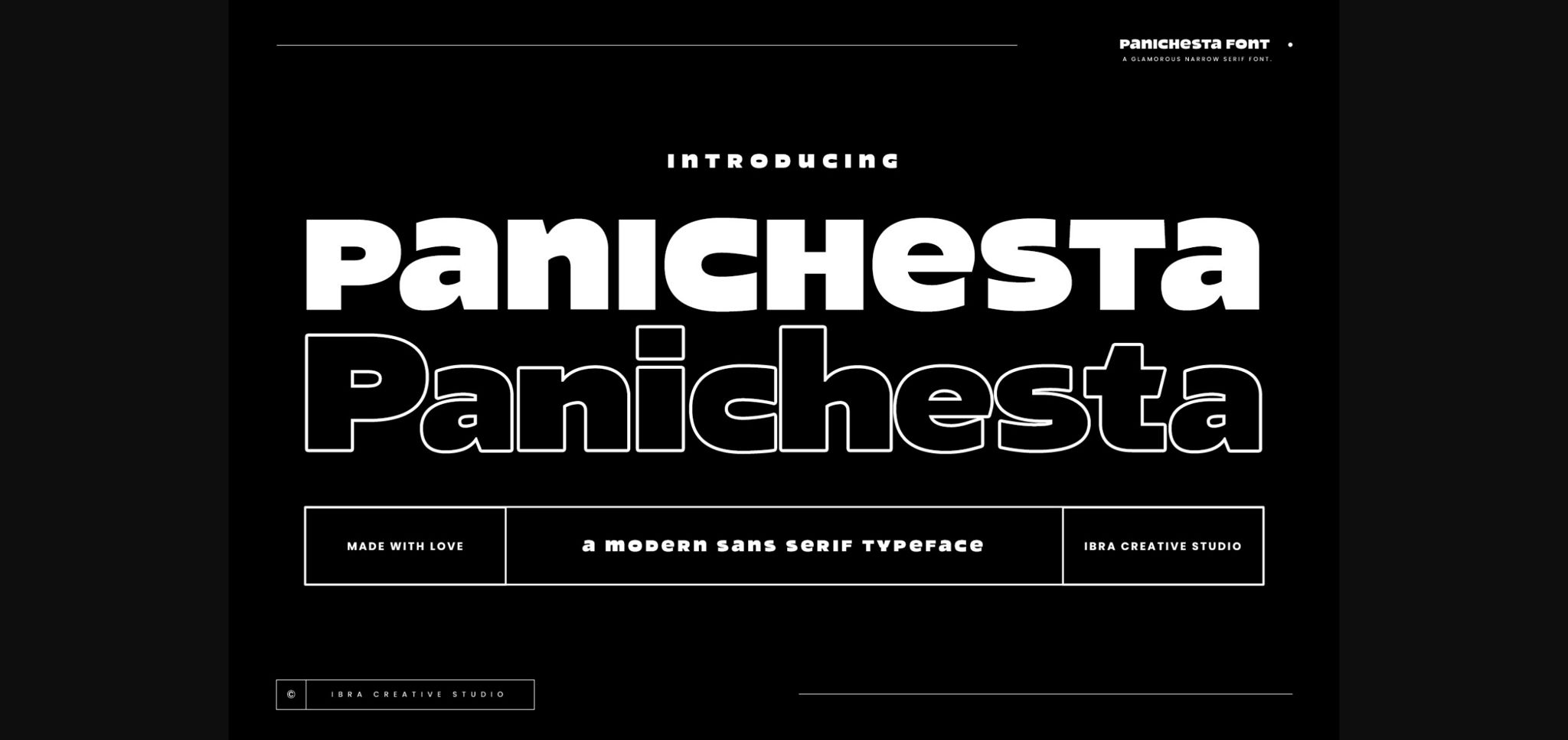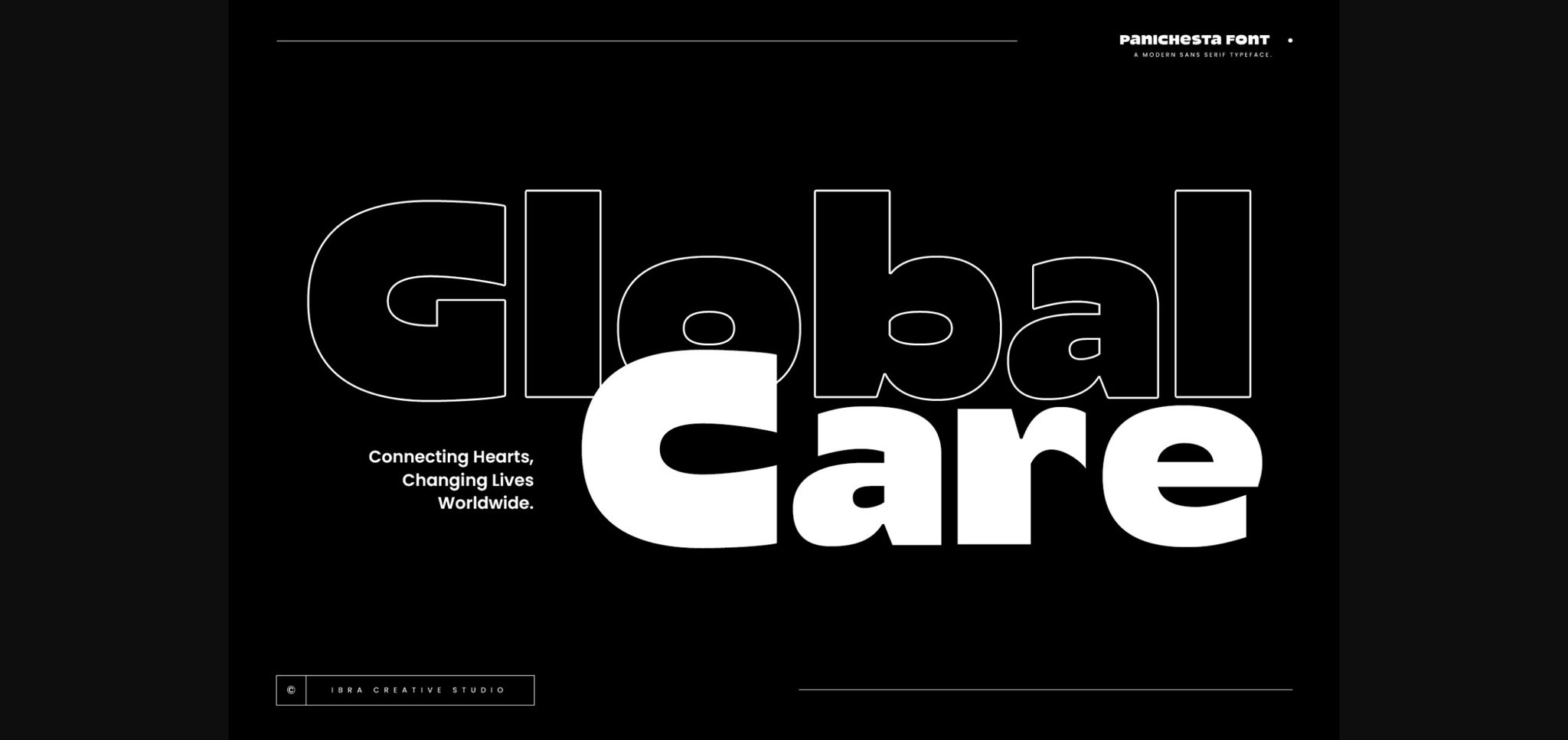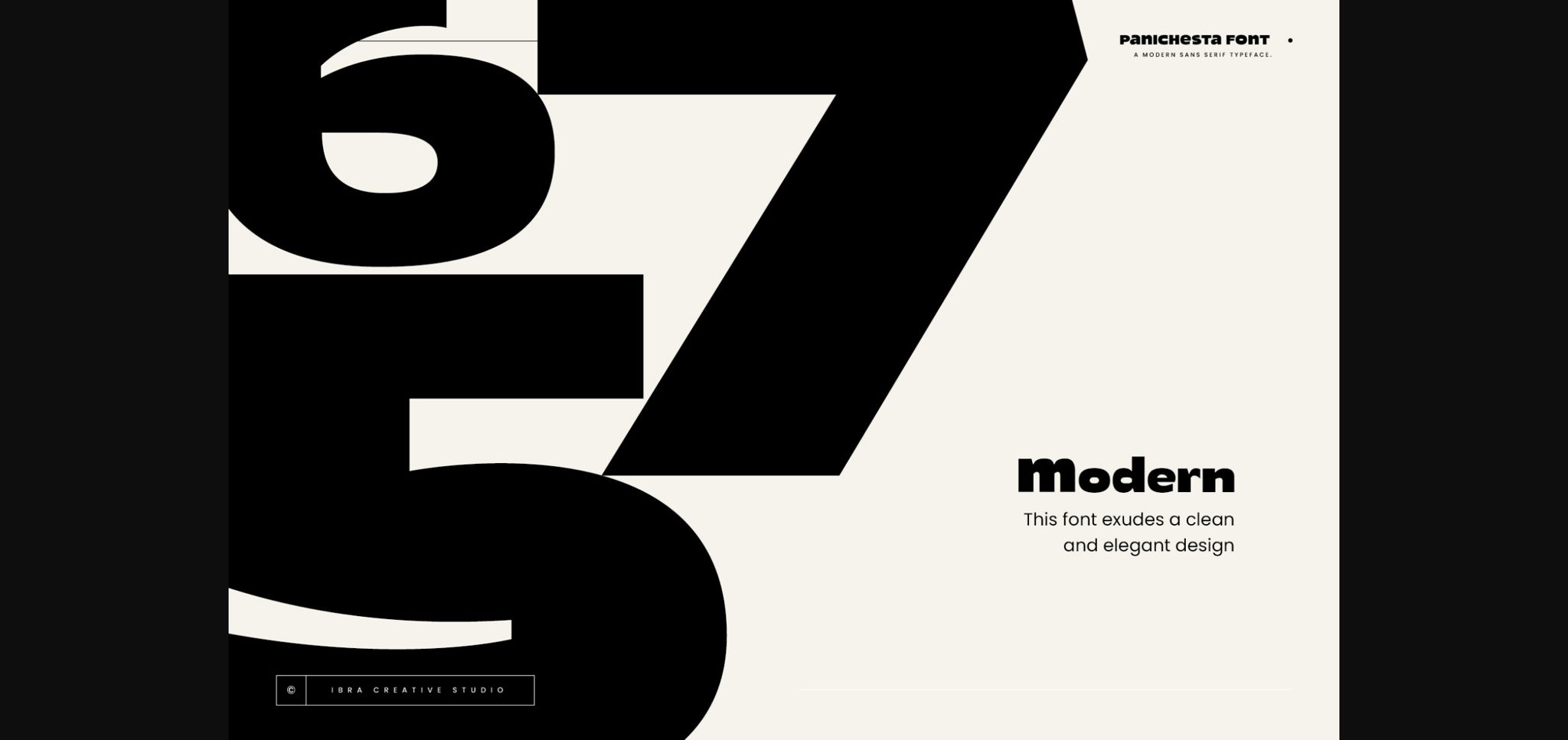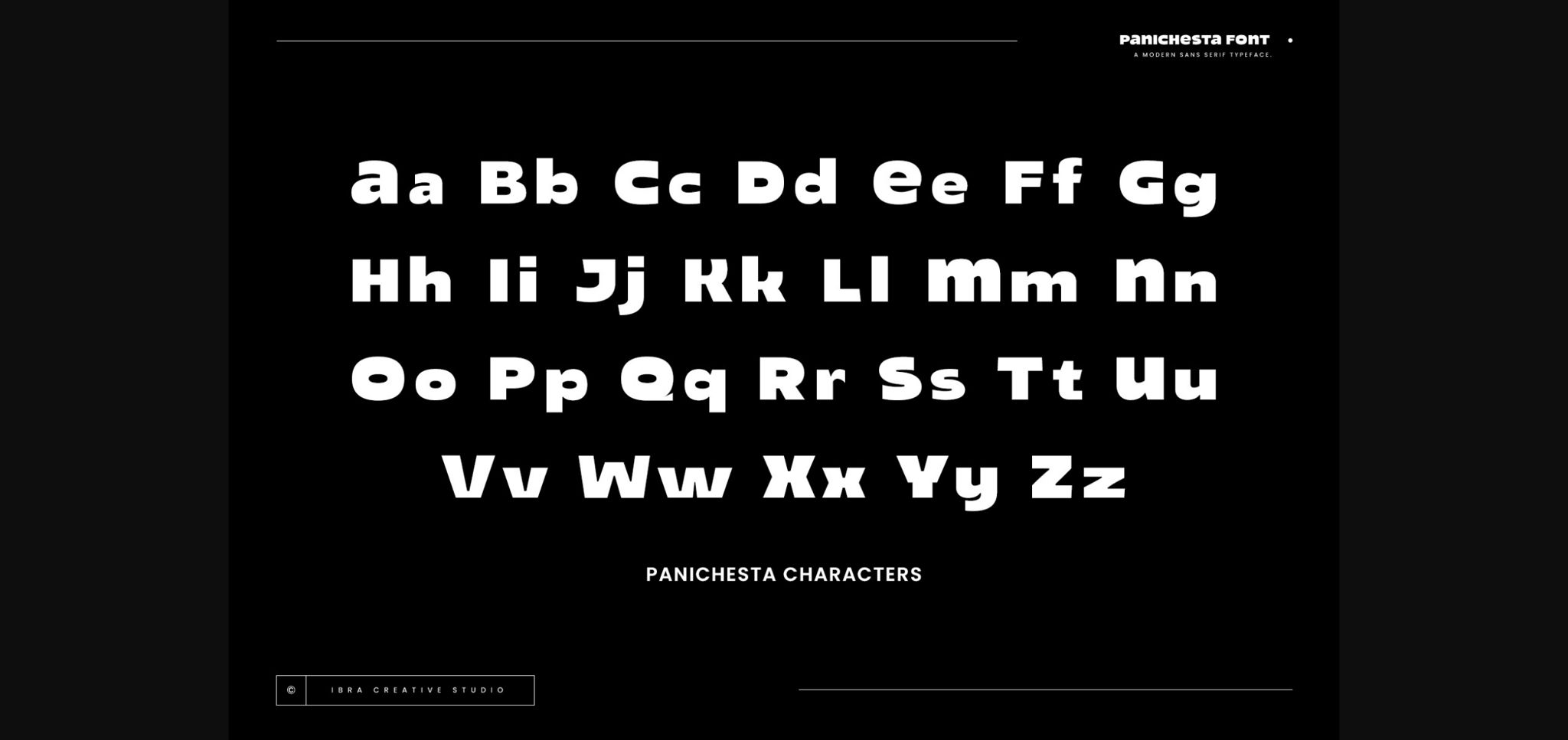
About Panichesta Font
Panichesta, a contemporary sans-serif typeface, seamlessly blends modern aesthetics with timeless simplicity. This font exudes a clean and elegant design, offering a versatile solution for various design applications. Its balanced letterforms boast a harmonious mix of straight lines and subtle curves, conveying a sense of sophistication and readability. Panichestaβs carefully crafted characters maintain a sleek and minimalist appearance, making it an ideal choice for both digital and print media.